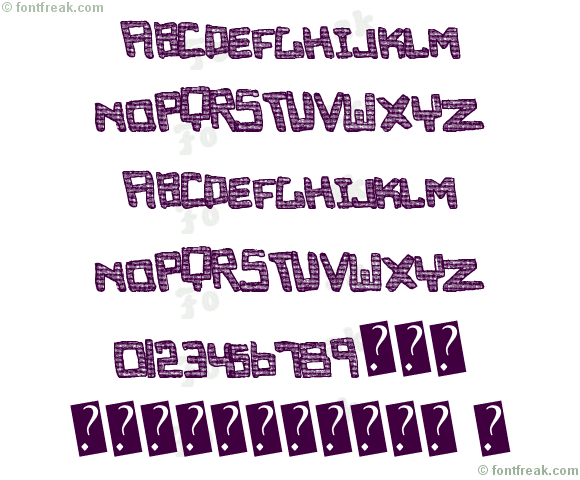
EmpireCaps
EmpireCaps by XEROGRAPHER FONTS is a striking display font that captures attention with its unique visual style. This font belongs to the decorative category, characterized by its bold stroke weight and playful, uneven letterforms. The overall design exudes a handmade quality, with each character featuring distinct, exaggerated features that give it a whimsical yet robust appearance. The spacing between the letters is generous, allowing for easy readability while maintaining a strong visual impact.
Ideal for various creative applications, EmpireCaps shines in contexts where a bold statement is required. It's perfect for movie posters, where its dramatic flair can enhance the visual narrative. The font is also an excellent choice for restaurant menus, especially for themed eateries looking to establish a distinctive brand identity. Additionally, it works well on promotional materials for events or parties, making invitations pop with personality. Content creators and graphic designers will find EmpireCaps particularly useful for social media graphics, giving their posts an eye-catching edge that stands out in crowded feeds.
The target audience for EmpireCaps includes graphic designers, small business owners, and content creators, all of whom are seeking a font that can convey a sense of creativity and originality. Its unique visual characteristics make it suited for projects that demand a touch of personality and flair.
What sets EmpireCaps apart is its ability to blend playfulness with boldness, making it versatile for a range of creative endeavors. Whether you're designing a captivating poster or crafting a memorable brand identity, the EmpireCaps font free download offers the perfect solution for those looking to make a lasting impression.